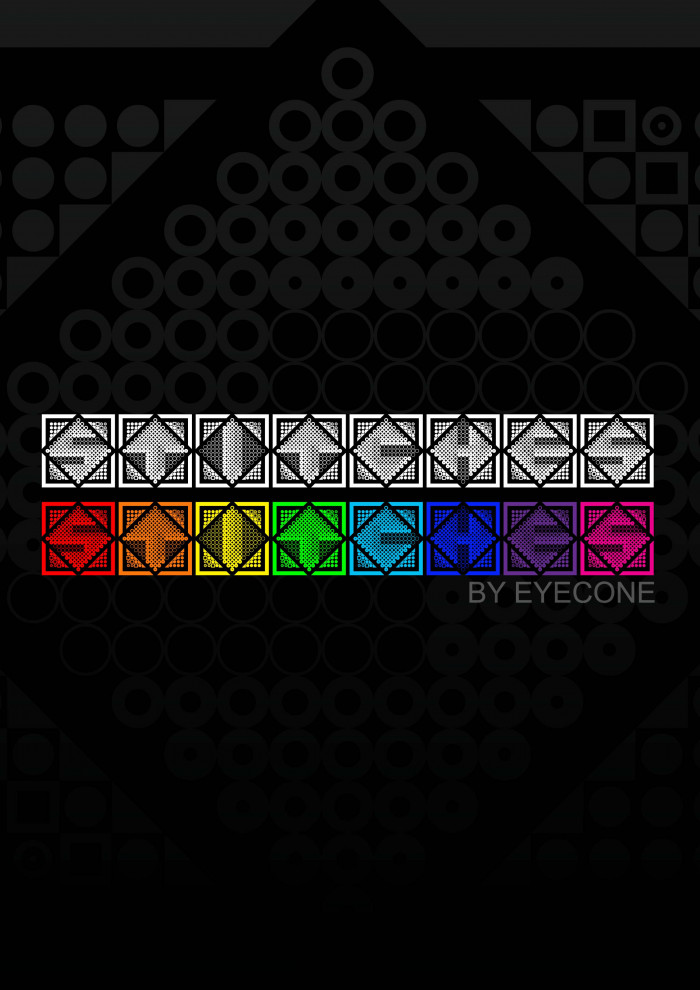
So artistic font:)
hopefully  by this coming  weekend, numbers and characters will be added.
Nice!
Latest sample
The use of the bricks to create the negative space is exceedingly effective.